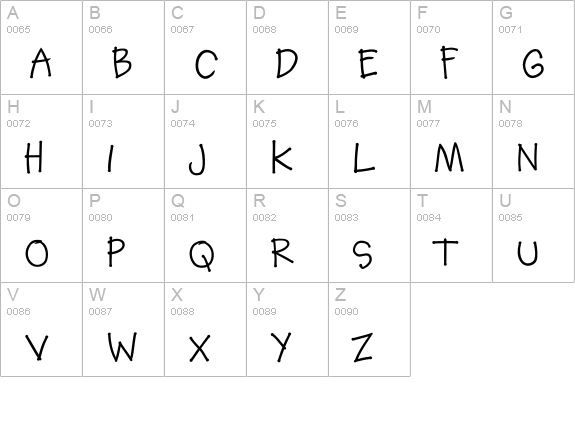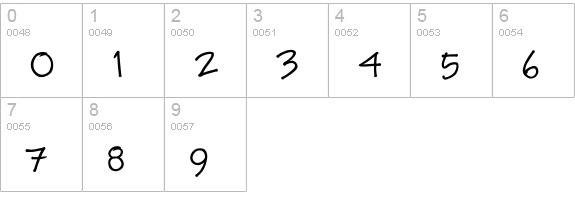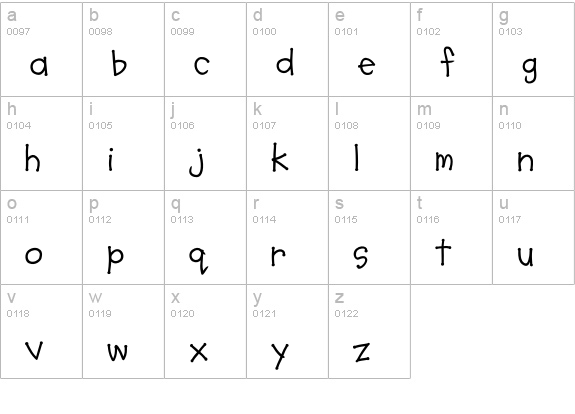
SoupBone-Regular Font Details
SoupBone-Regular is the standard, neutral variant in the SoupBone typeface family \xE2\x80\x94 well suited to general body text, paragraphs, and standard typographic work.
SoupBone-Regular is a versatile and eye-catching font that brings a touch of whimsy to any design project. With its playful yet sophisticated letterforms, this font is perfect for adding a unique and memorable element to logos, headlines, and other creative endeavors. The character of SoupBone-Regular is both bold and friendly, making it suitable for a wide range of applications. Whether you're creating a poster, designing a website, or crafting a greeting card, this font will instantly elevate your project and catch the attention of your audience. One of the best things about SoupBone-Regular is that it is free. That's right - you can download this captivating font at no cost from FontsMarket.com. This means that you can enjoy all the benefits of this font without breaking the bank, making it an ideal choice for both personal and commercial use. So why wait? Head over to FontsMarket.com today and get your hands on SoupBone-Regular. With its creative flair and free availability, this font is a must-have for any design enthusiast or professional. Take your designs to the next level with SoupBone-Regular and let your creativity soar.